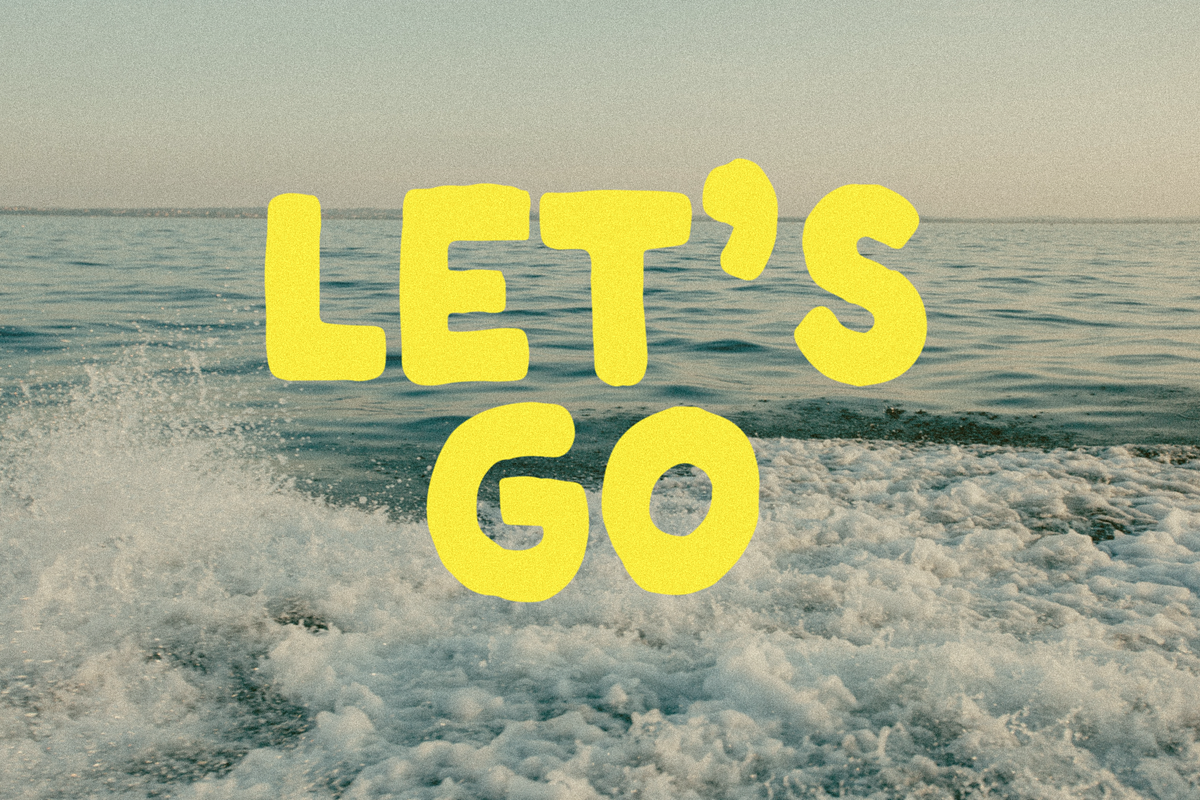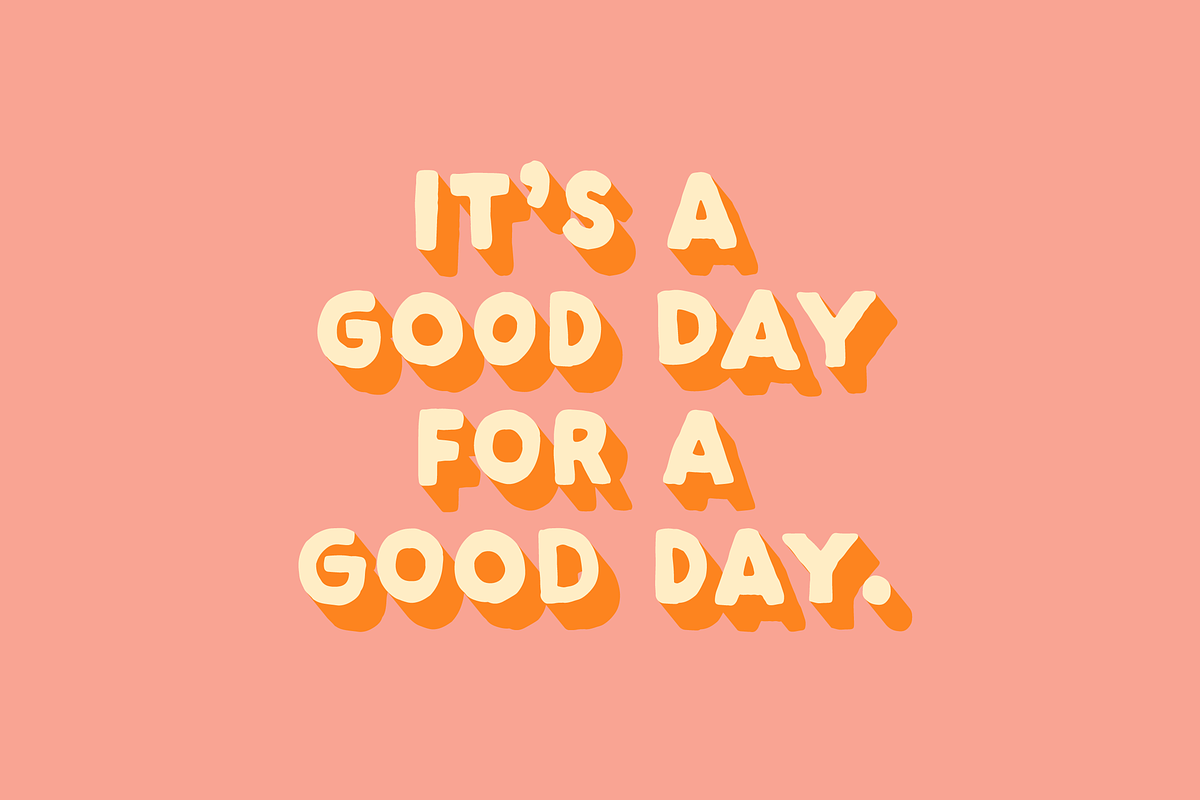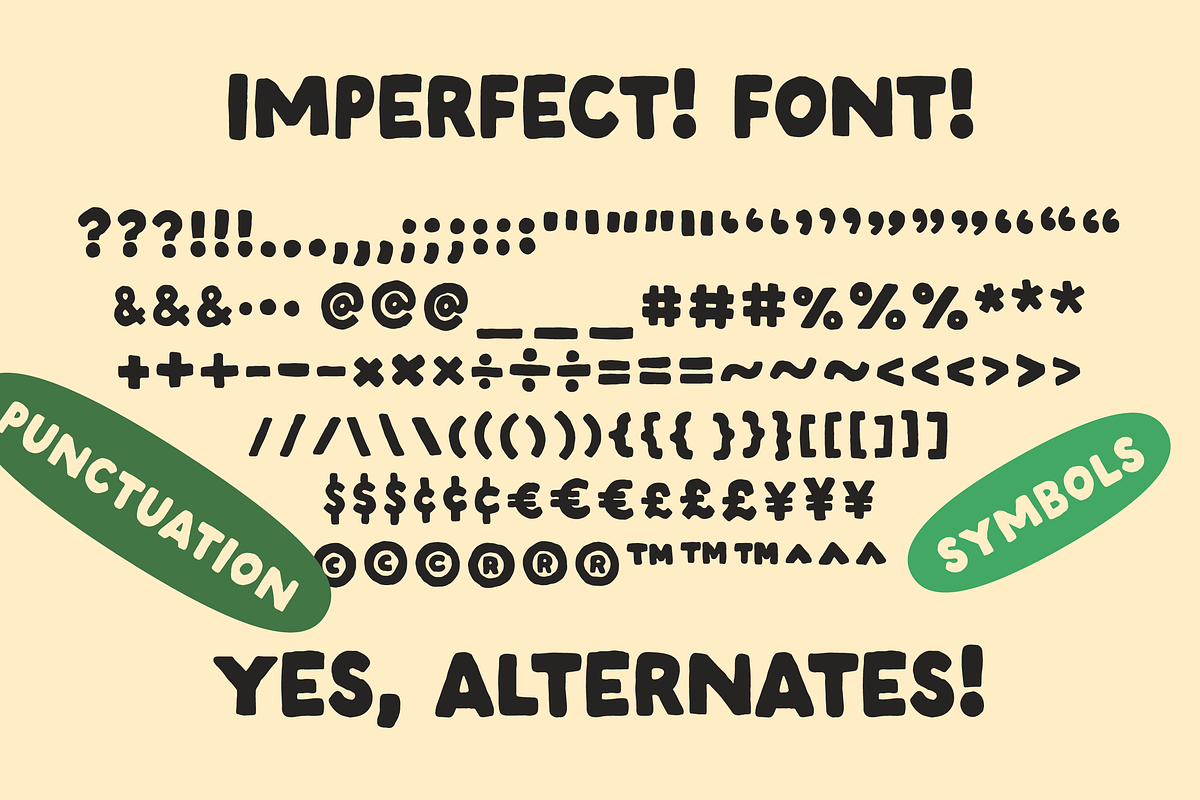
Imperfect! A Handwritten Sans Serif
Imperfect font! This is a handwritten sans serif with lots of wonderful handmade imperfections. I drew each character by hand, including alternates, to create a relaxed font that feels like handwriting.
Looks great for logos, quotes, art, titles, and a handmade touch.
This font was inspired by a bunch of things I love, like imperfect vintage printing, hand-lettering, doodling on paper, and handwritten notes. :)
What's in the font? Uppercase Letters A-Z! Numbers! Symbols! Punctuation! Alternates! (see slides!)